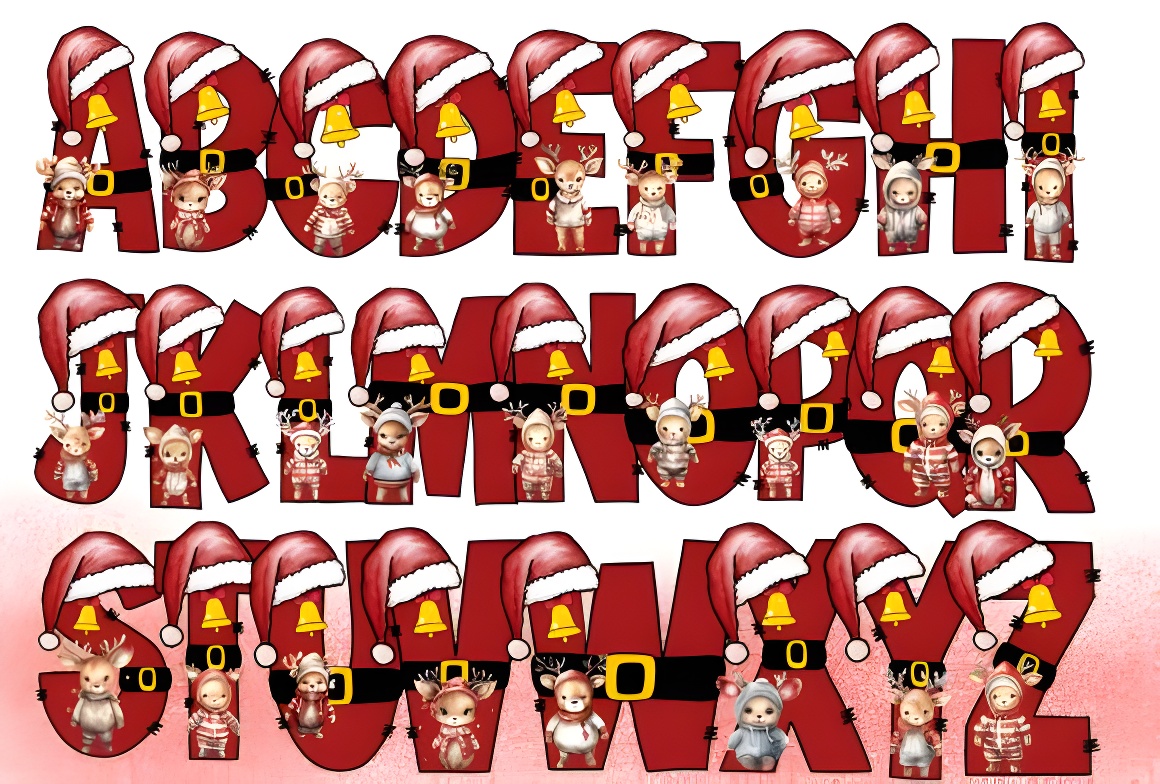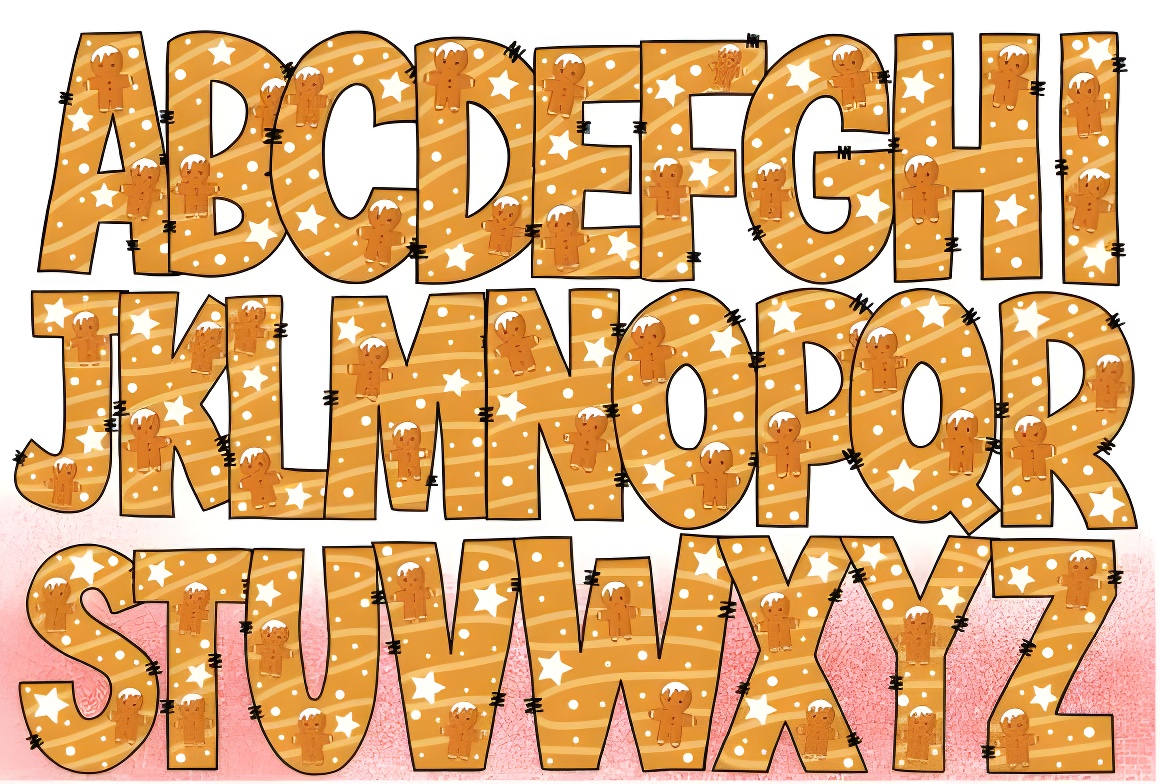
Festive Christmas Font | Holiday Typography & Design
Elevate your holiday designs with this vibrant, cheerful Christmas font! Perfect for festive invitations, greeting cards, social media, and merry seasonal projects.